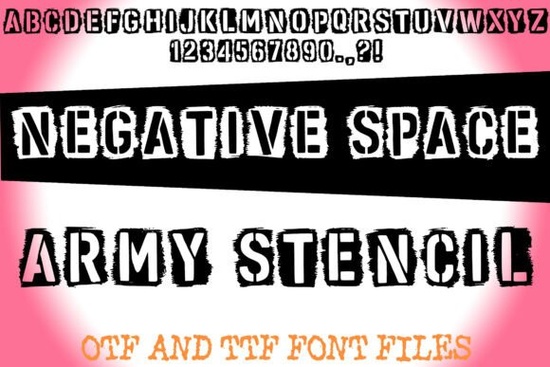
If you’ve ever needed a font that looks like it was stenciled onto a shipping crate or stamped across military gear, the Negative Space Army Stencil Font delivers exactly that without sacrificing readability. Designed with authentic stencil breaks and a gritty, distressed texture, this typeface carves each letter out of a rough background, creating a bold visual contrast that grabs attention while keeping your message clear. It’s especially useful for designers, crafters, and print-on-demand sellers who want to add an industrial, tactical, or urban edge to their projects.
What sets this font apart isn’t just its military inspiration it’s how the negative space is used as a design feature. Instead of solid letterforms, each character appears “cut out” from a textured block, mimicking real-world stenciling where paint bleeds or surfaces wear down over time. The result feels raw and lived-in, perfect for posters, apparel, game assets, protest graphics, or branding that needs to project strength and authenticity.
Who is this font best suited for?
This font works well if your project leans into themes like:
- Military or tactical branding (think survival gear, outdoor apparel, or veteran-owned businesses)
- Street art or urban culture designs
- Grunge-style posters, album covers, or zines
- Industrial packaging or labeling with a hand-stamped aesthetic
- Print-on-demand products like mugs, T-shirts, or stickers where texture adds depth
Keep in mind: the Negative Space Army Stencil Font includes uppercase letters only, along with basic punctuation (. ? !) and numbers. It comes in both OTF and TTF formats, so it’s compatible with most design software from Adobe Creative Suite to Canva and Silhouette Studio.
How does it compare to other stencil or distressed fonts?
Many stencil fonts rely solely on cut-out shapes but miss the tactile realism of actual field markings. Others go heavy on grunge effects but become hard to read at smaller sizes. This font strikes a balance: the distressed background gives it character, while the consistent negative space maintains legibility even when scaled down.
Practical uses beyond the obvious
While it’s ideal for army-themed designs, don’t limit yourself to camouflage and dog tags. Consider using it for:
- Event posters music festivals, skate competitions, or underground art shows benefit from its rebellious tone.
- Product labels artisanal hot sauces, craft beers, or workshop tools can use the font to signal rugged quality.
- Social media graphics quotes about resilience, discipline, or urban life pop with this treatment.
- Stencil templates since it mimics real stencils, it’s great for creating DIY spray-paint guides or wood-burning patterns.
Because the texture is built into the letterforms, you don’t need to layer extra effects in post-production. That saves time and keeps file sizes manageable especially helpful for small business owners managing multiple product listings.
- ✅ Confirm your project uses uppercase-only text this font doesn’t include lowercase letters.
- ✅ Test readability at your intended size; while it’s designed for clarity, very small applications (like fine print) may lose impact.
- ✅ Pair it with clean, minimal supporting elements let the font be the focal point.
- ✅ Remember it includes numbers and basic punctuation, so it works for dates, prices, or short slogans.